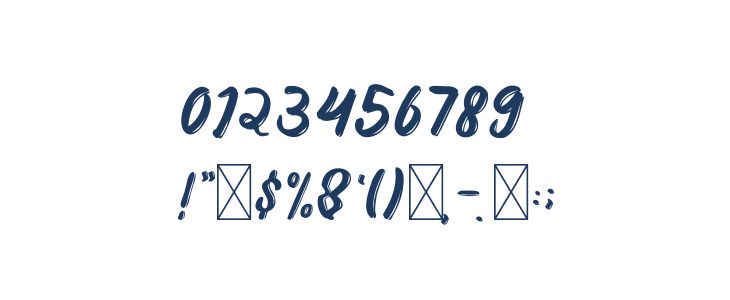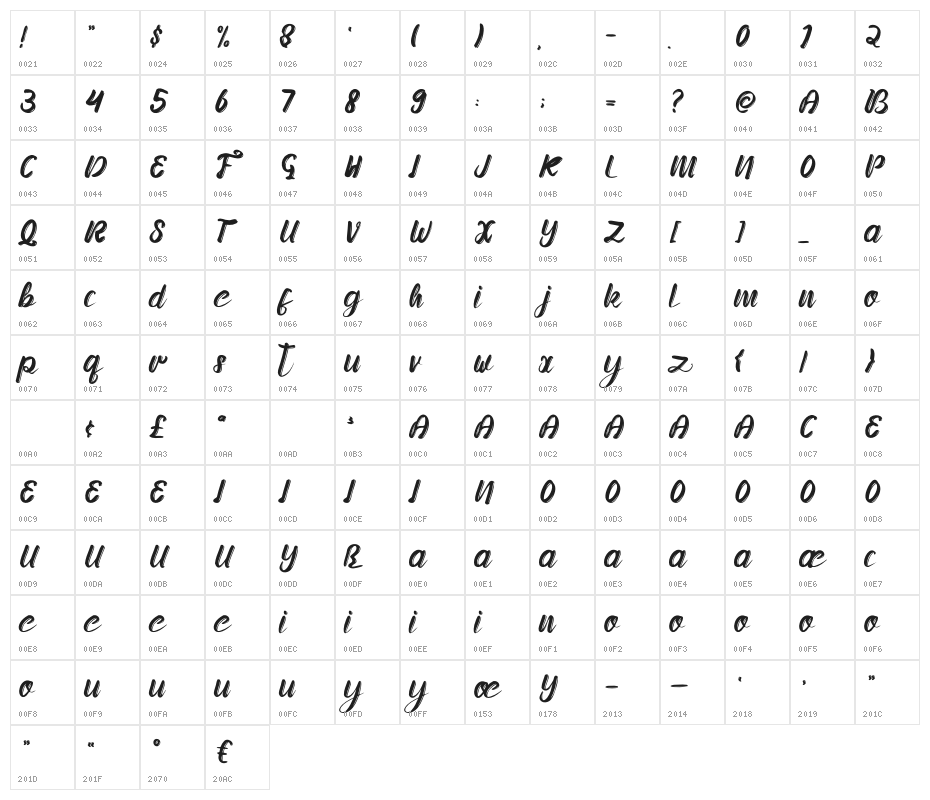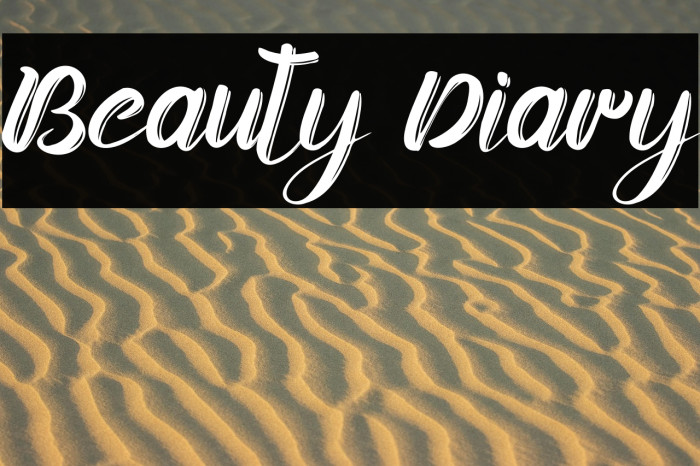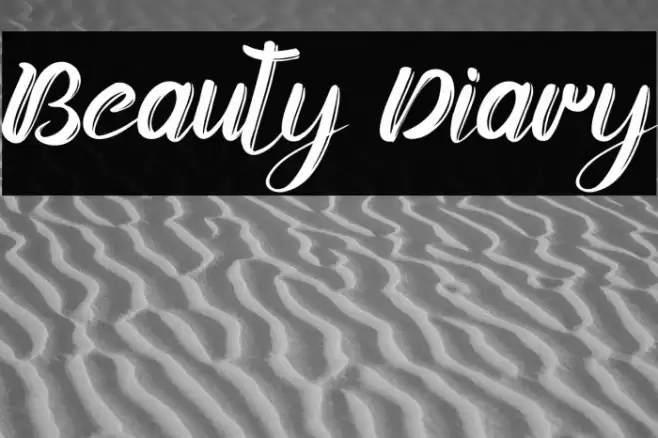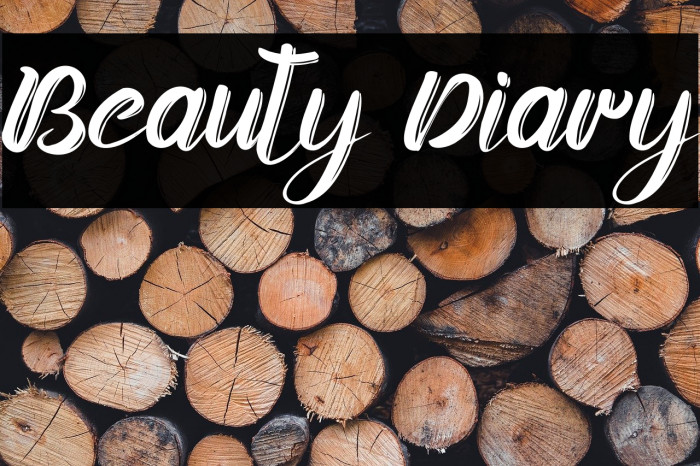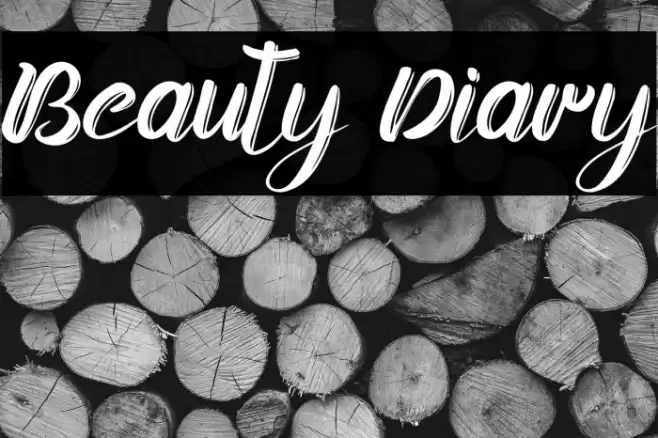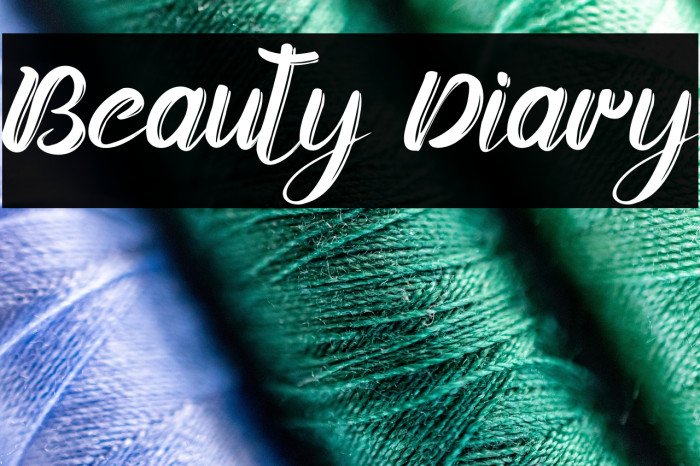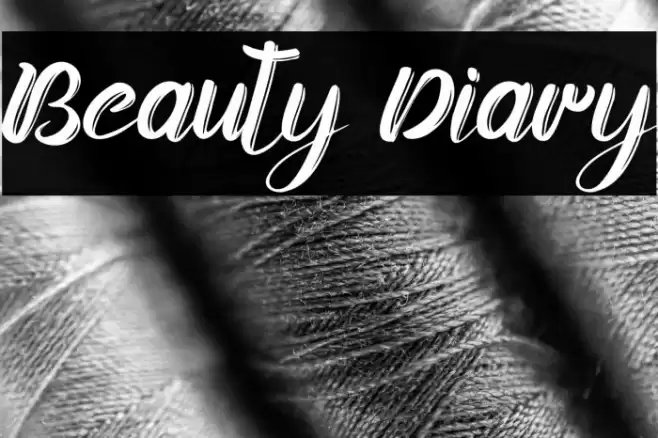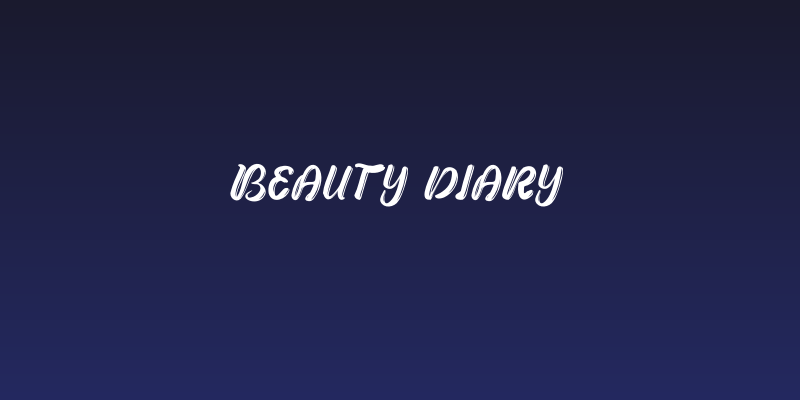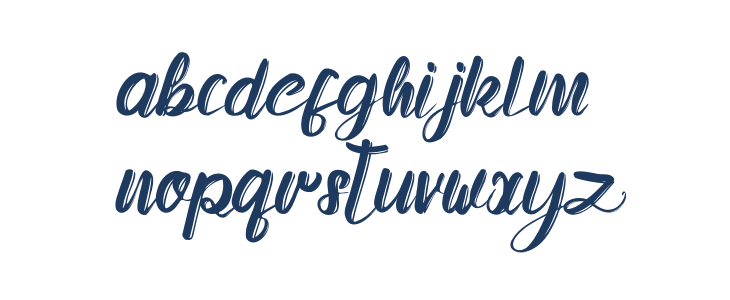
Beauty Diary Font
Beauty Diary Description
This font features a bold and expressive script style, characterized by its flowing, cursive letterforms that exude elegance and creativity. The uppercase letters are slightly larger and more pronounced, while the lowercase letters maintain a consistent flow, enhancing readability. The numbers and special characters are designed with the same artistic flair, making them visually cohesive with the alphabet. The strokes are thick and consistent, providing a strong visual impact. This font is ideal for projects that require a personal touch or a sense of sophistication.